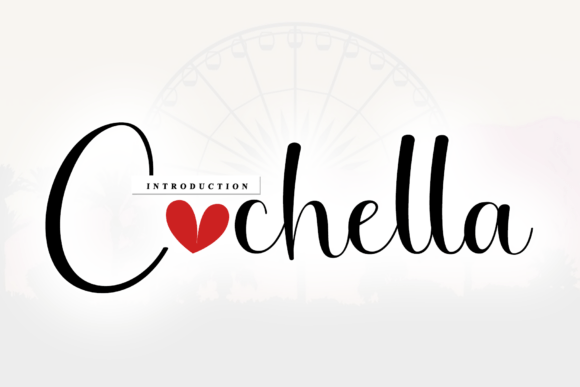
The Perfect Harmony of Font and Function
As creatives, we’ve all been there – staring at a blank canvas, searching for the perfect combination of style and substance to bring our vision to life. It’s a moment of pure inspiration, when the world of design and artistry come together in perfect harmony. For those seeking to create a truly unique and captivating visual identity, look no further than the enchanting Cochella Font.
This sophisticated script font is more than just a pretty face – it’s a carefully crafted tool designed to elevate your brand and leave a lasting impression. With its sweeping, looping ascenders and warm, organic aesthetic, Cochella Font is the perfect choice for artisans, designers, and marketers looking to create a premium visual experience.
For designers, the value of Cochella Font lies in its ability to add a touch of handcrafted elegance to any project, from boutique product packaging to upscale lifestyle marketing campaigns. Its unique blend of calligraphic style and artisanal charm makes it an invaluable asset in any creative arsenal.
Cochella Font Key Features
- Unique Characteristics: Distinctive, modern script font with a mix of cursive and handwritten styles
Cochella Font Review
Overall, I have mixed feelings about the Cochella Font. While it has some great qualities, it also has some notable limitations.
- The font has a beautiful, elegant feel to it, making it perfect for high-end branding and luxury designs.
- The typography is highly customizable, allowing users to adjust font weights, styles, and sizes to suit their needs.
- Cochella Font is highly legible, even at small font sizes, making it ideal for body text and large blocks of content.
- The font’s high-end feel can also make it seem overly formal or stuffy, which may not be suitable for more casual or playful designs.
- Some users may find the font’s lines and curves to be too ornate or intricate, which can make it difficult to read in certain situations.
- While the font is highly customizable, some users may find it difficult to achieve the perfect balance of elegance and legibility.
The Cochella Font is a beautiful and highly customizable font that is perfect for high-end branding and luxury designs. However, its limitations may make it less suitable for more casual or playful designs. With some careful consideration and customization, the Cochella Font can be a valuable addition to any designer’s toolkit.
Tips for Getting the Most Out of Cochella Font
Here are some tips for getting the most out of the Cochella Font:
– Use it for headings and titles to add a touch of elegance to your designs.
– Pair it with bold fonts for a striking contrast.
– Experiment with different font sizes and styles to create a unique look.
Common Use Cases for Cochella Font
The Cochella Font is commonly used in:
– Music festival branding and marketing materials.
– Luxury event invitations and tickets.
– Fashion and lifestyle magazine designs.
Alternatives to “Cochella Font” for Designers
Great Vibes is a modern calligraphy font that is perfect for creating a luxurious and elegant feel. It is ideal for use in wedding invitations, greeting cards, and other special occasions. Compared to Cochella Font, Great Vibes has a more refined and sophisticated look, making it a great choice for designers who want to create a high-end feel.
Q: Is Cochella a variable font?
Yes, Cochella is a variable font, which means it can be adjusted for width and weight in real-time. This feature allows designers to create a wide range of styles and variations within a single font file.
Q: What is the recommended font size for using Cochella?
The recommended font size for using Cochella varies depending on the application and design context. However, as a general guideline, it’s recommended to use Cochella at font sizes ranging from 12 to 24 points for digital media, and 10 to 18 points for print media.